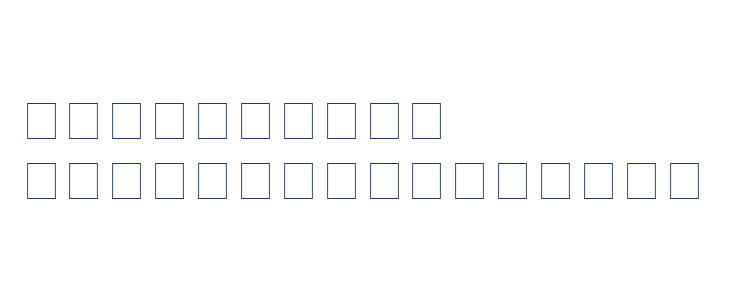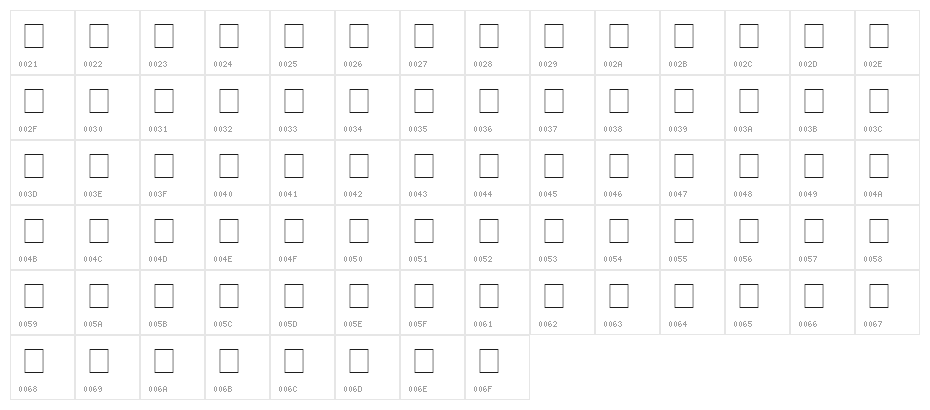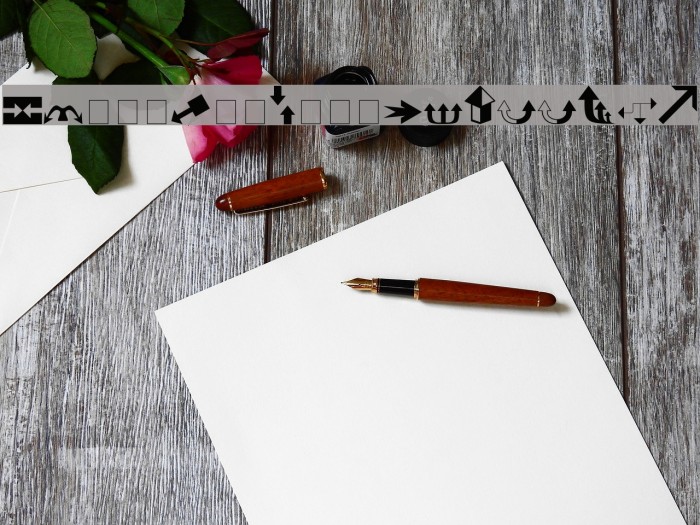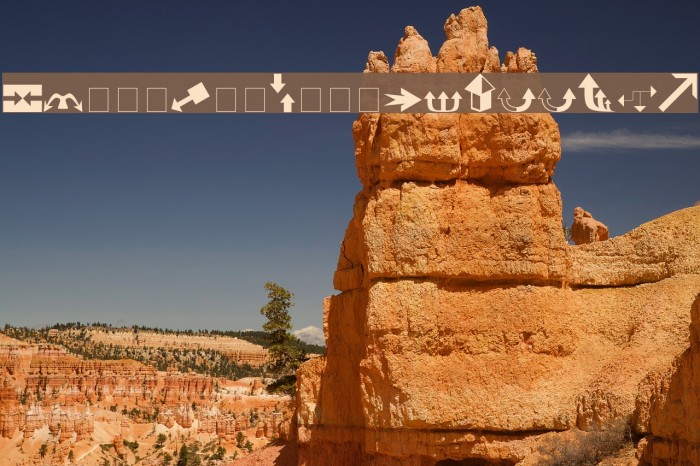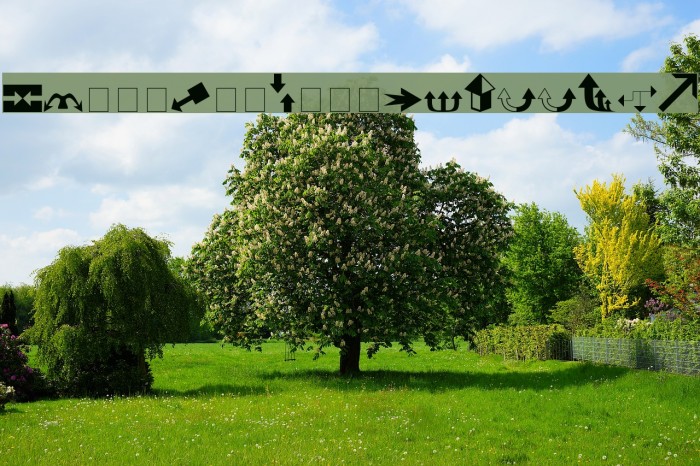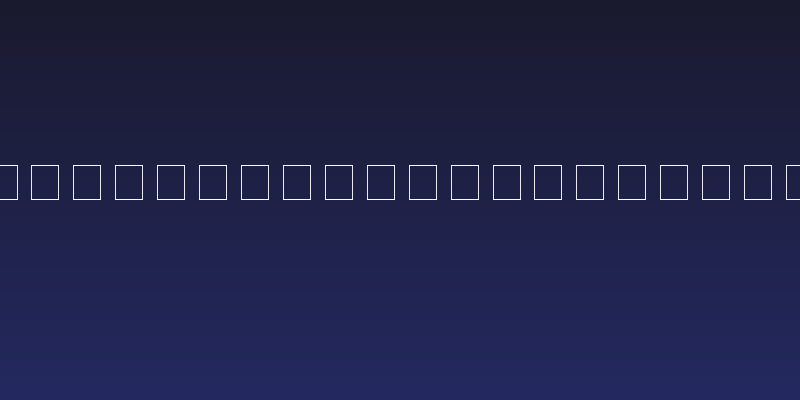
Carr Arrows [filled] Font
Carr Arrows [filled] Description
A decorative display font composed entirely of various filled arrow shapes and directional symbols, each character representing a unique arrow or pointer in different styles and orientations. The glyphs are bold, geometric, and highly stylized, with some characters incorporating abstract or blocky elements.
| Overall Style | Decorative, Modern, Geometric |
| Use Case | Icons, Infographics, Posters, Signage, UI elements |
| Proposed Projects | Infographics, signage, navigation interfaces, educational materials, creative posters, and directional guides. |